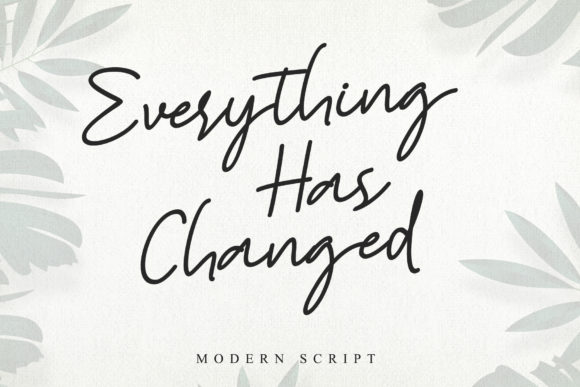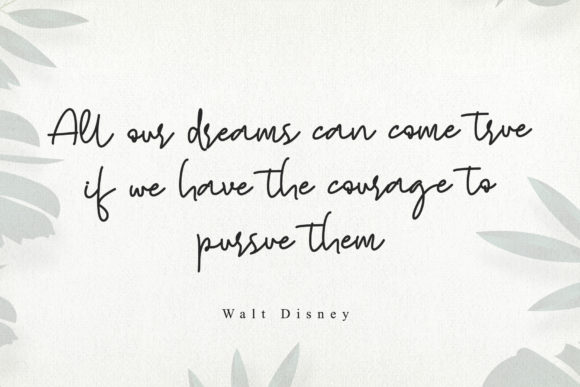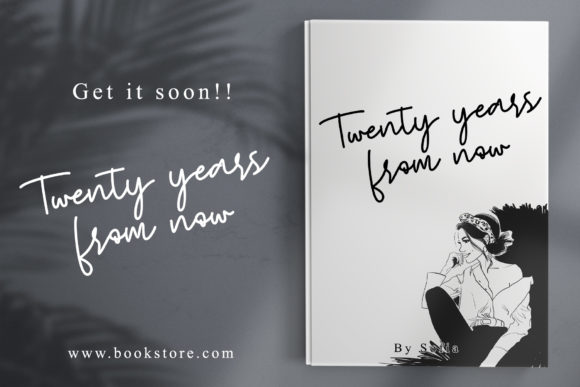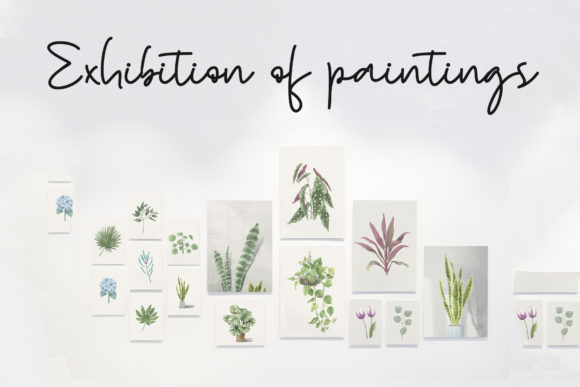
About Everything Has Changed Font
Everything Has Changed is an incredibly distinct, delicate and timeless handwritten font. It looks stunning on wedding invitations, thank you cards, quotes, greeting cards, logos, business cards and every other design which needs a handwritten touch.